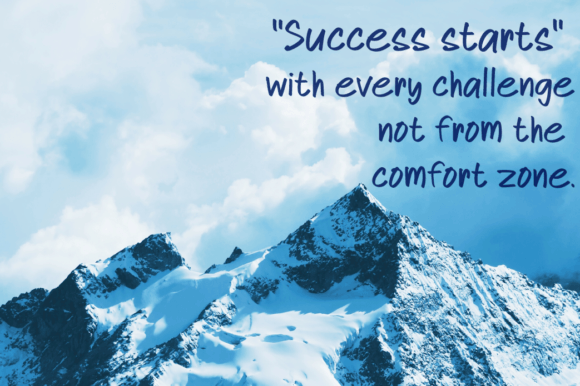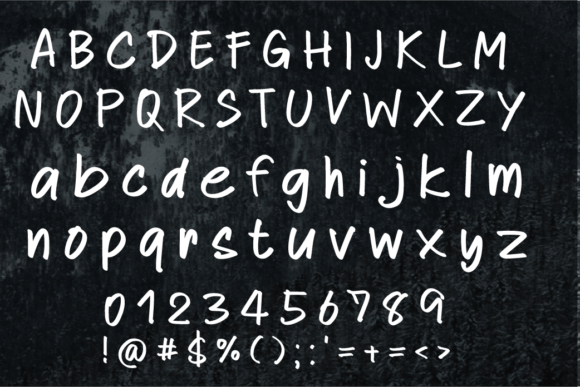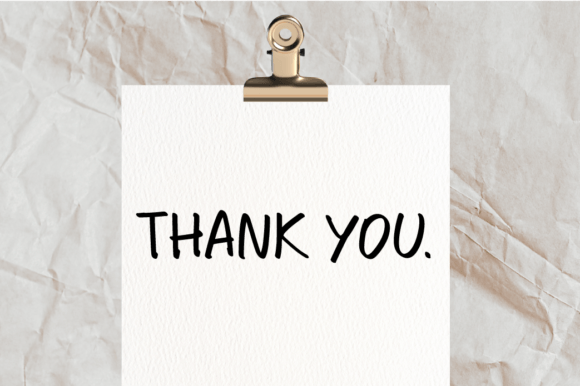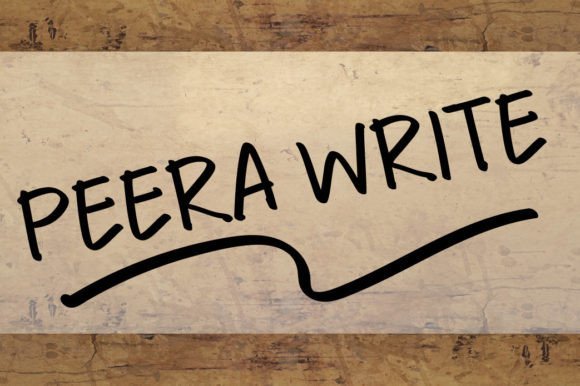
Introduction to Peera Write Font
PEERA WRITE is fun, casual, creative, natural-looking handwritten.
It works better for note-taking, greetings, creating invitations, posters, or digital art This font will make your message stand out and grab attention.
Key Features of Peera Write Font